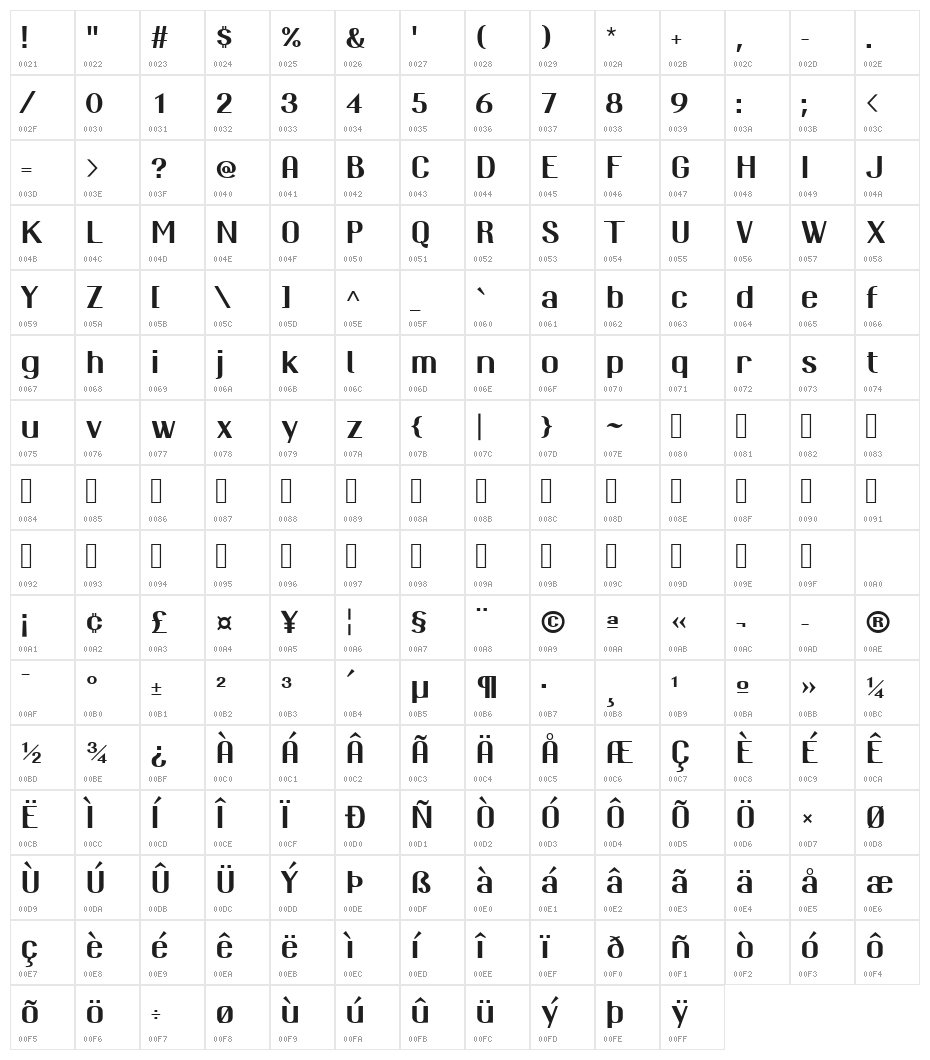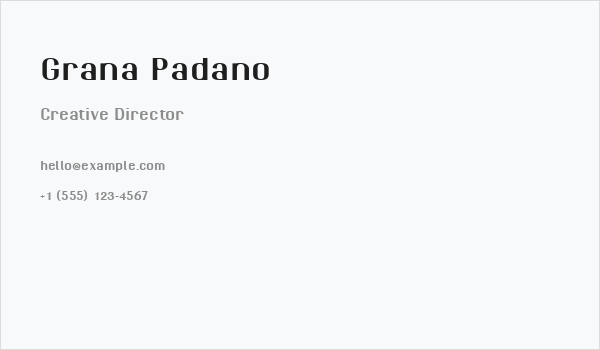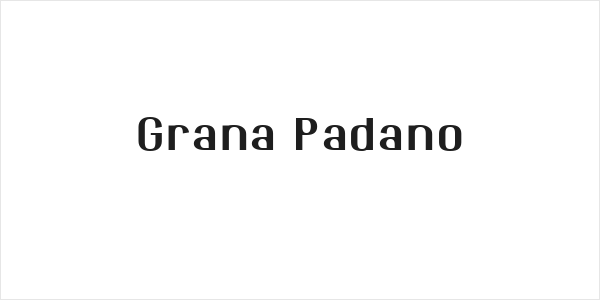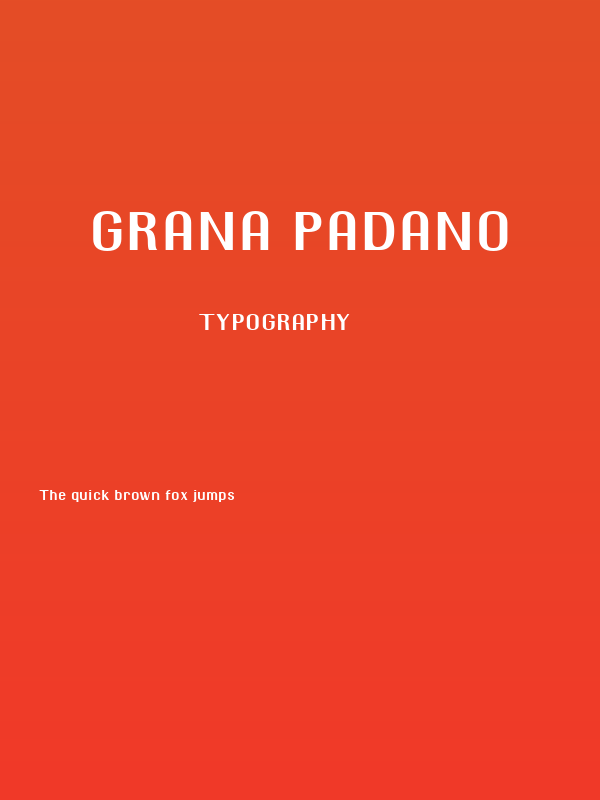
Grana Padano Font
Grana Padano Description
This font exhibits a bold and modern aesthetic with clean lines and a geometric structure. The uppercase letters are tall and slightly condensed, giving a strong and assertive presence. The lowercase letters maintain a consistent style with rounded edges that soften the overall look. Numbers are clear and easily distinguishable, making them suitable for various applications. Special characters are well-integrated, maintaining the font's cohesive design. The font's versatility makes it ideal for both digital and print media, offering a contemporary yet timeless appeal.
| Proposed Projects | Ideal for branding, advertising, headlines, and digital media projects. |